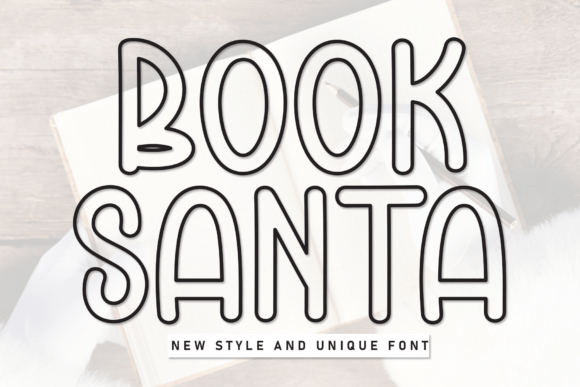
Dance into Whimsy with Book Santa Font
Have you ever been in the midst of crafting a design project, only to find that it’s missing that special something? Perhaps you’re working on a wedding invitation, a greeting card, or a whimsical illustration, and you’re struggling to find the perfect font to bring your vision to life. I recall a similar experience when I was working on a project for a client’s birthday party invitation. I had the design concept nailed, but the font I was using just wasn’t doing it justice. That’s when I stumbled upon Book Santa Font, and it completely transformed my design!
A Personal Review of Book Santa Font
- ✨ Its whimsical and charming handwritten style, perfect for injecting a dash of fun into your creations
- ✅ The sweet and friendly vibes it effortlessly conveys, making it ideal for projects that require a touch of warmth
- 💫 Its versatility – use it for wedding invites, captivating cards, or adding a magical touch to various designs
- 🎉 The delightful nuances in its letterforms, which add a sprinkle of joy to any project
- 🤔 It may not be the best fit for projects requiring a formal or corporate tone
- ⚠️ Some users may find the font’s playful nature too informal for certain applications
One of the exciting features of Book Santa Font is its support for OpenType features and glyphs. Users can access stylistic alternates, ligatures, and other special characters to add an extra layer of creativity to their designs.
The Designer Inspiration Behind Book Santa Font
Book Santa Font was crafted with love and care by a talented designer who aimed to create a font that would bring joy and whimsy to creative projects. The designer’s inspiration came from the magic of childhood, where imagination knows no bounds and creativity flows freely.
Book Santa Font is a delightful addition to any design project, bringing a dash of whimsy and charm to your creations. With its sweet and friendly vibes, it’s perfect for crafting enchanting wedding invites, captivating cards, or adding a magical touch to various designs. So why wait? Experience the delightful language of Book Santa Font and see how it effervescently transforms your project into something extraordinary!